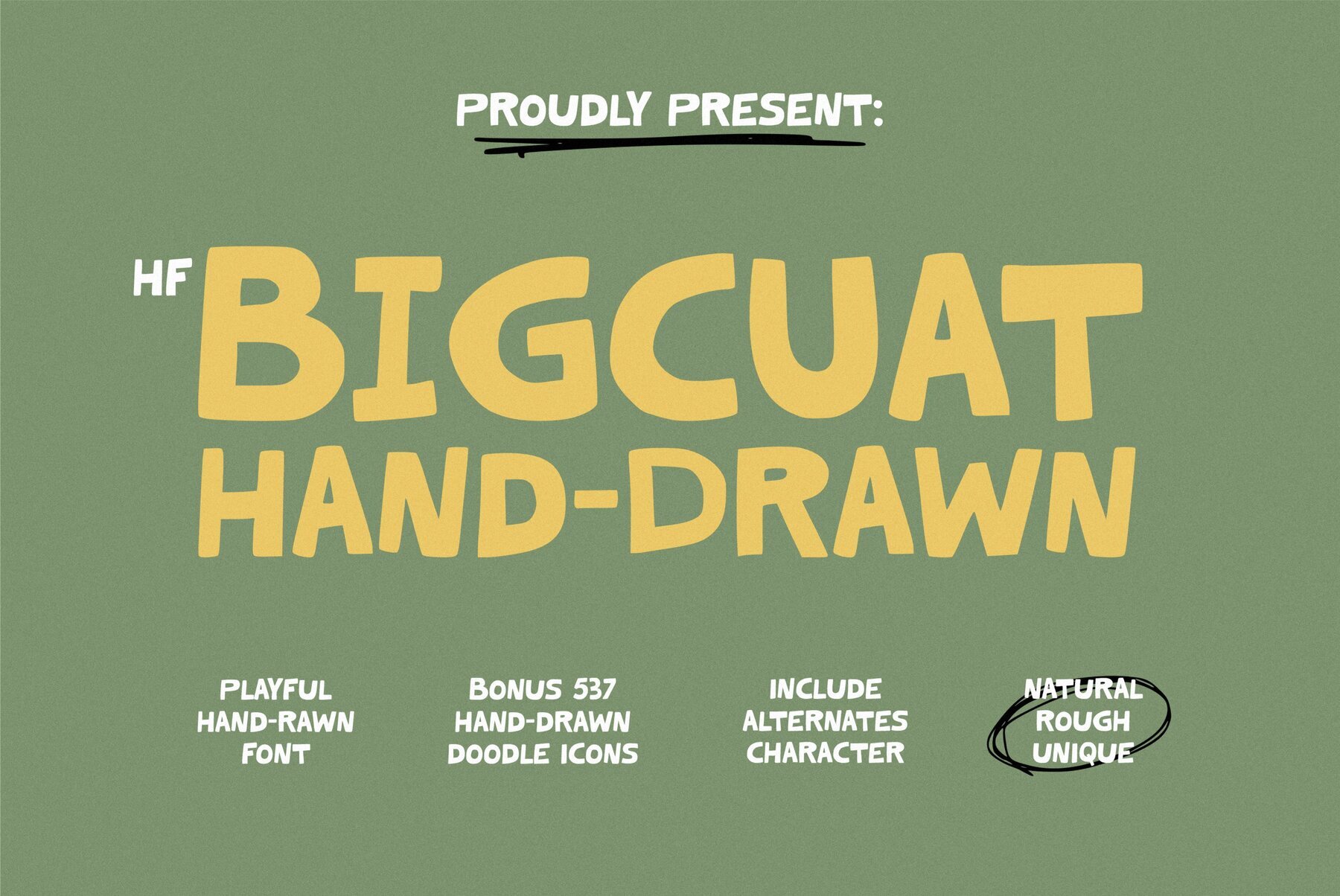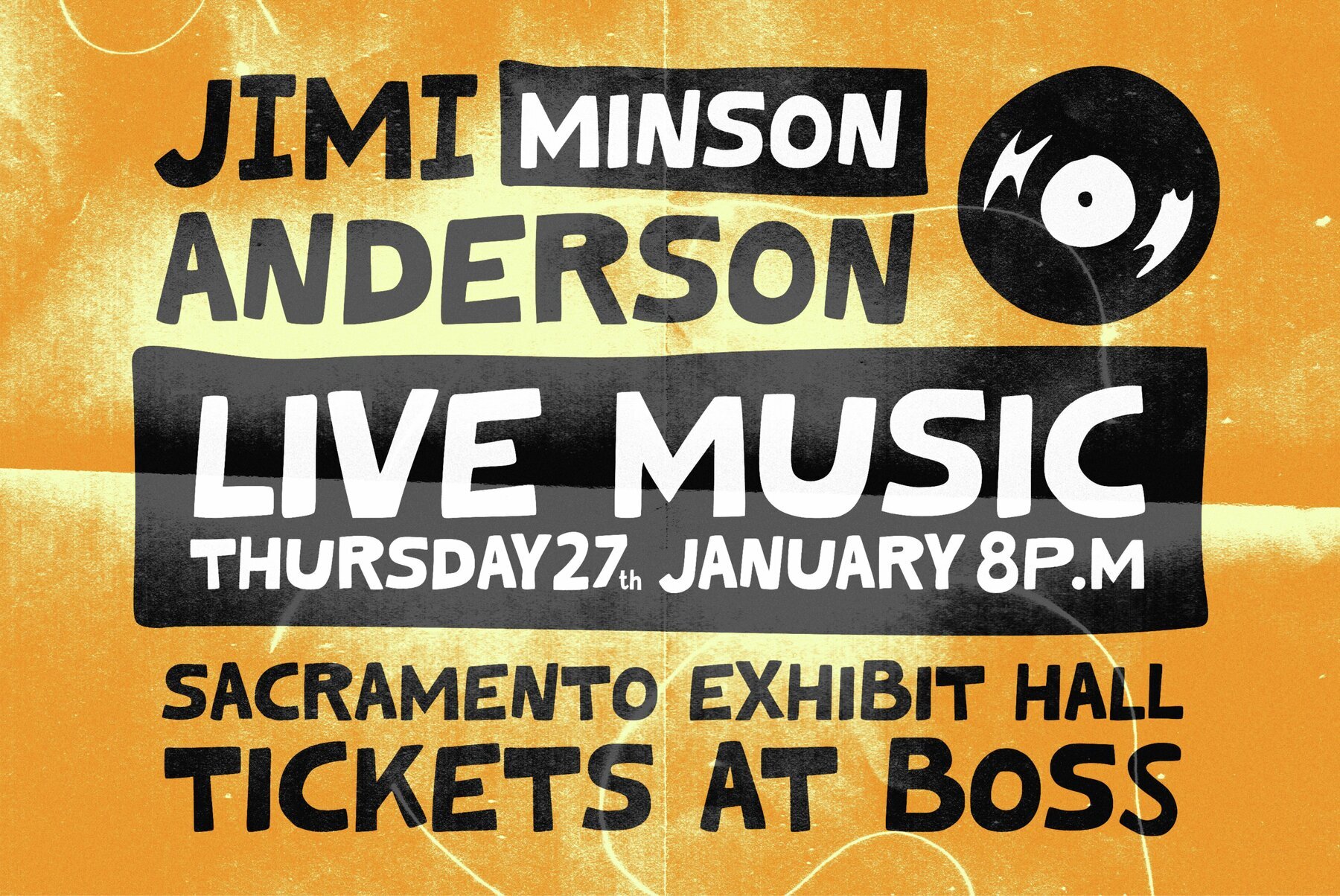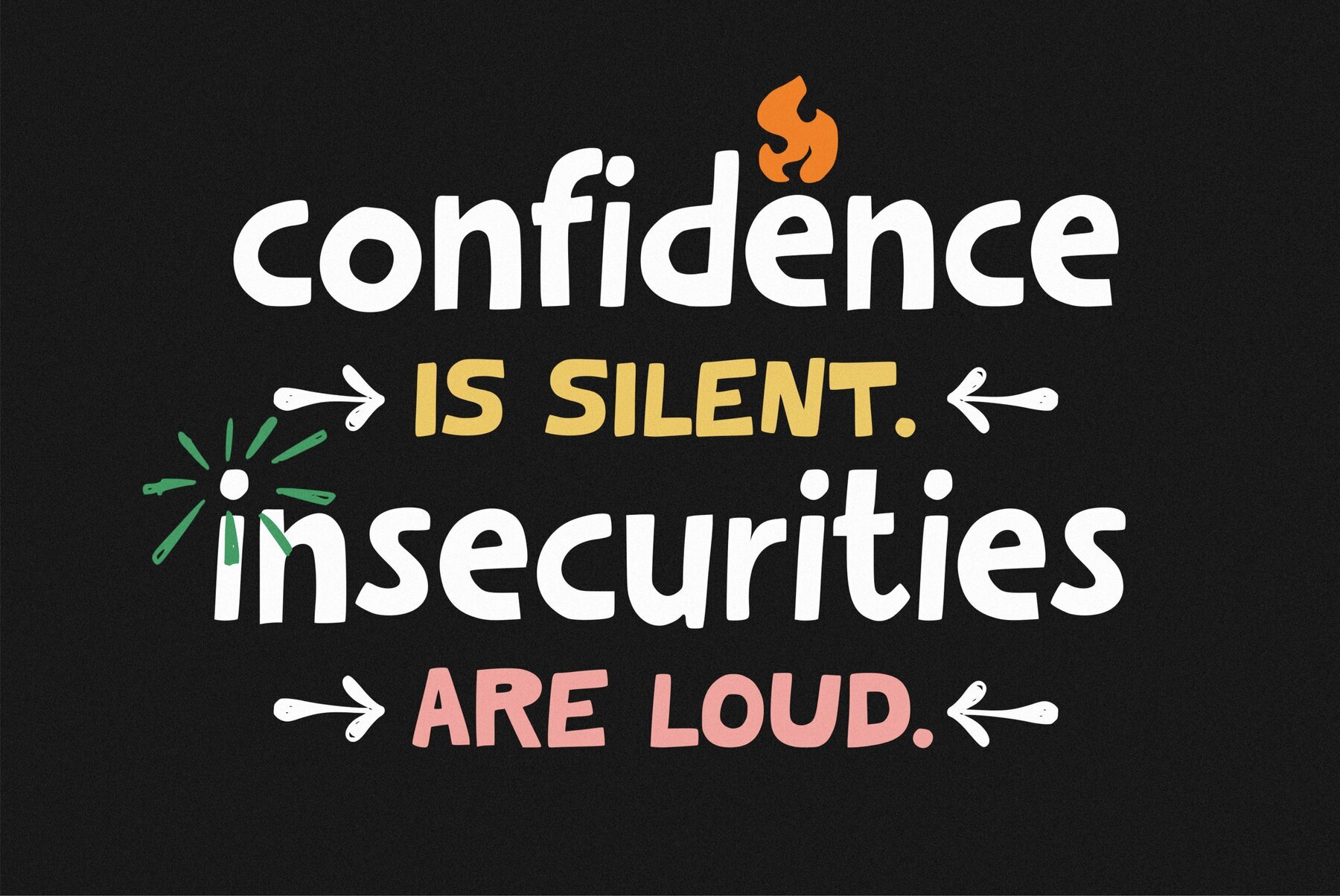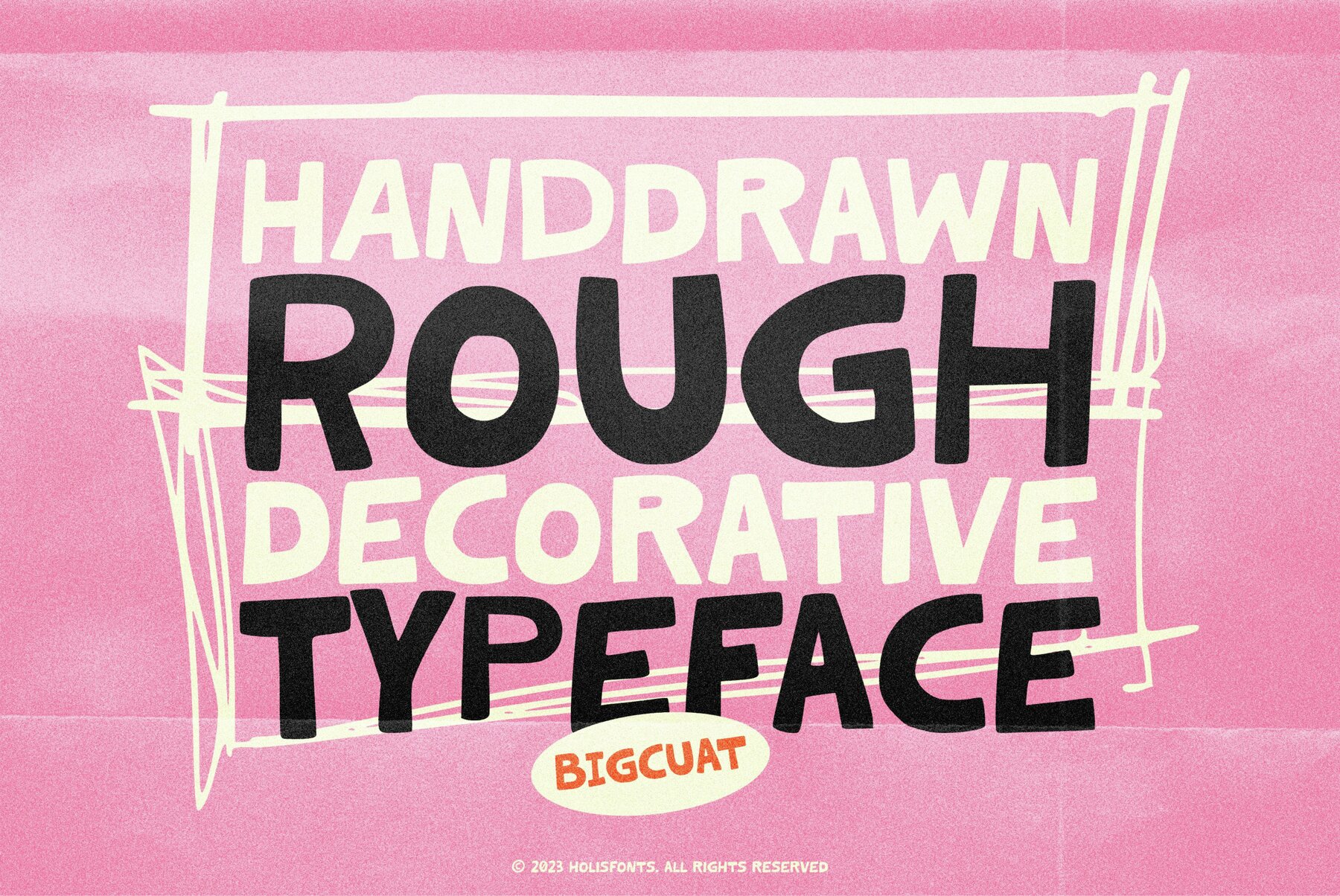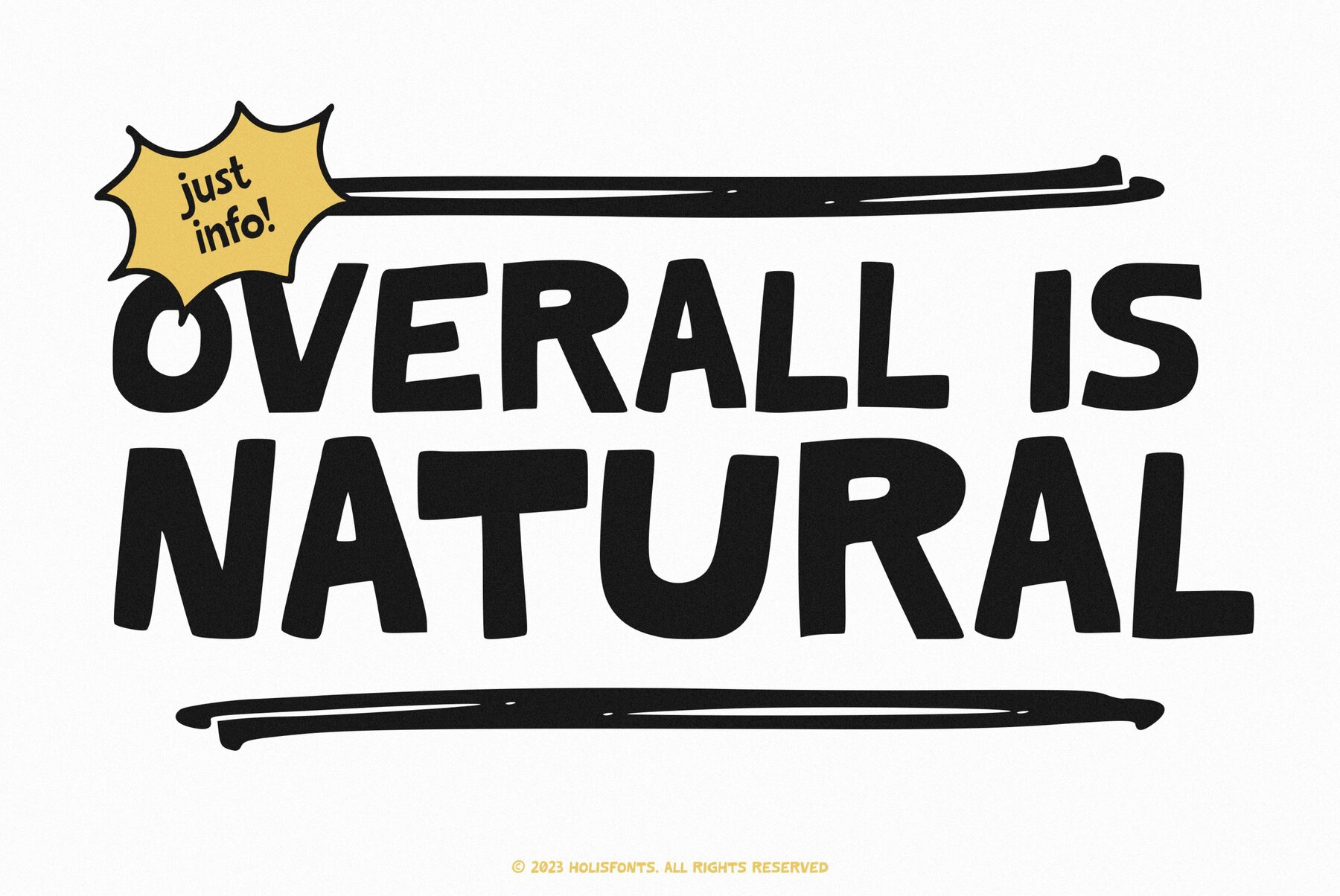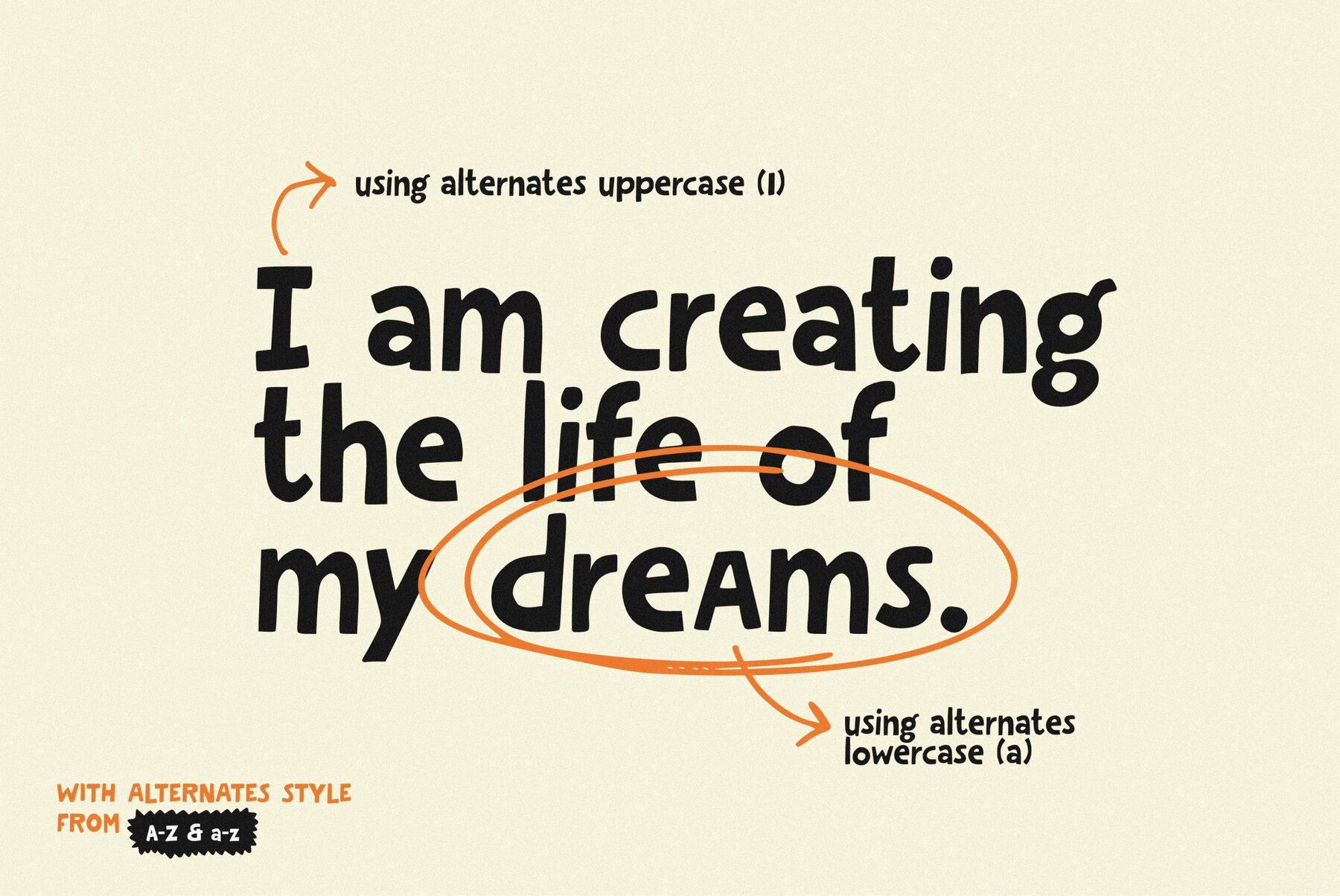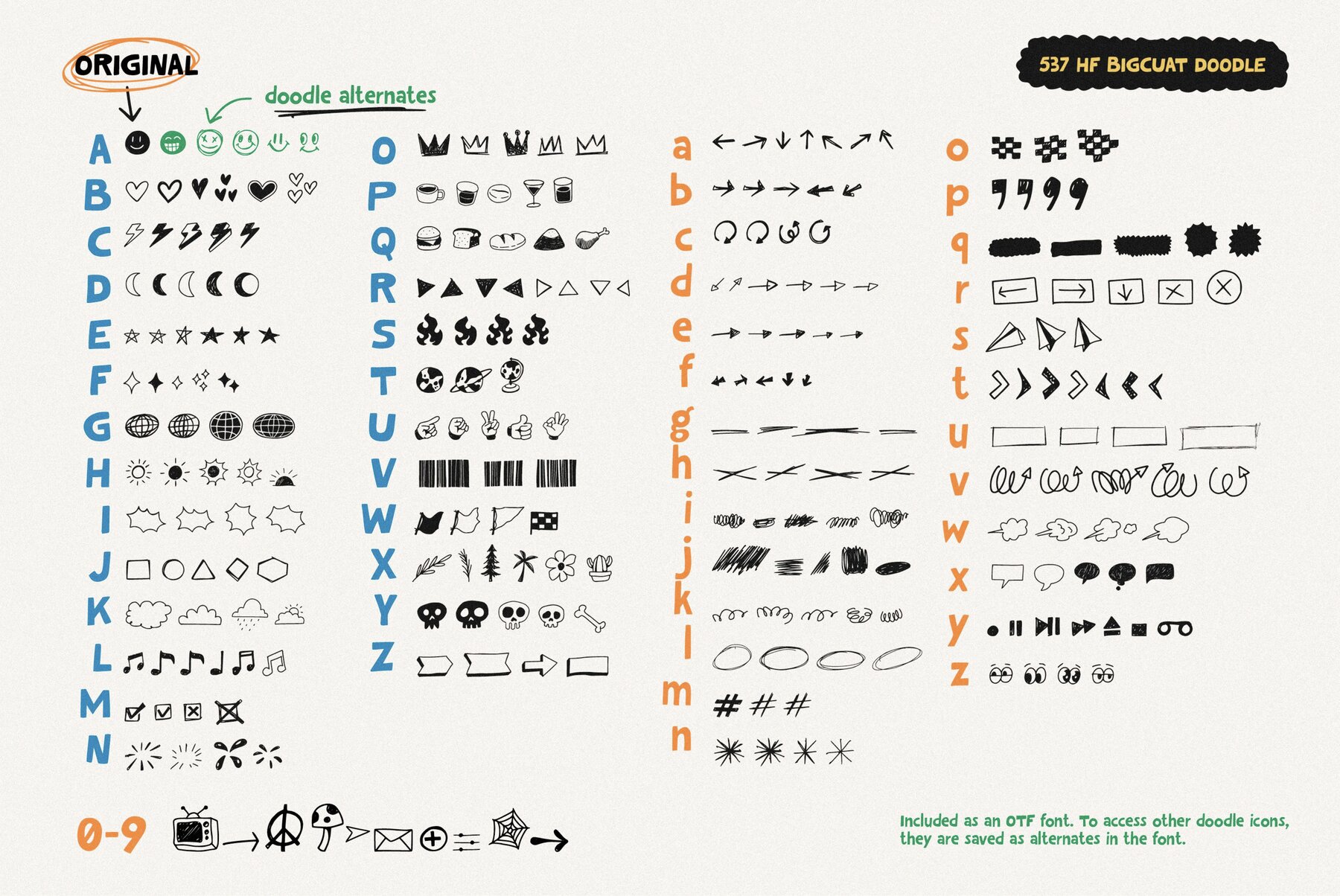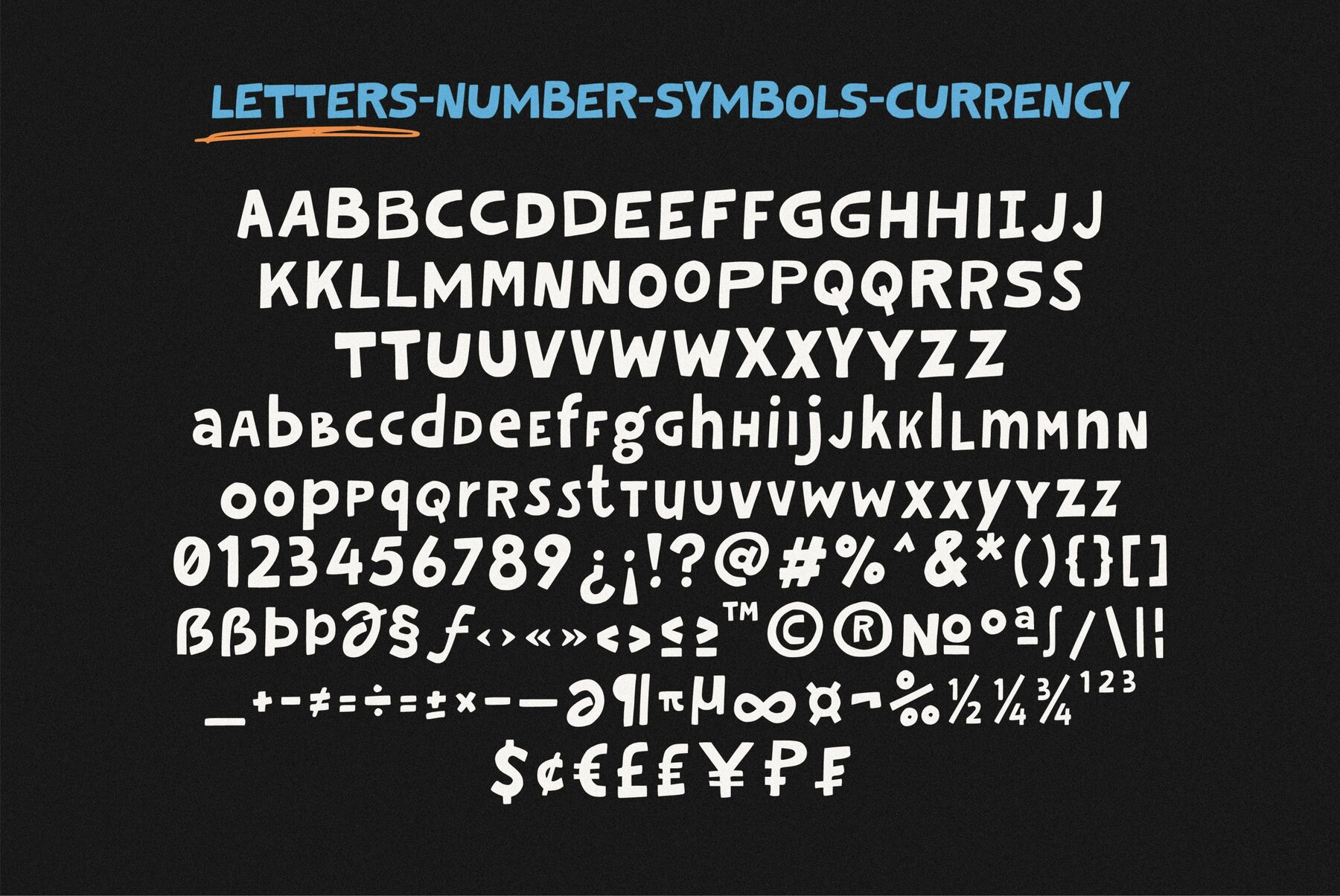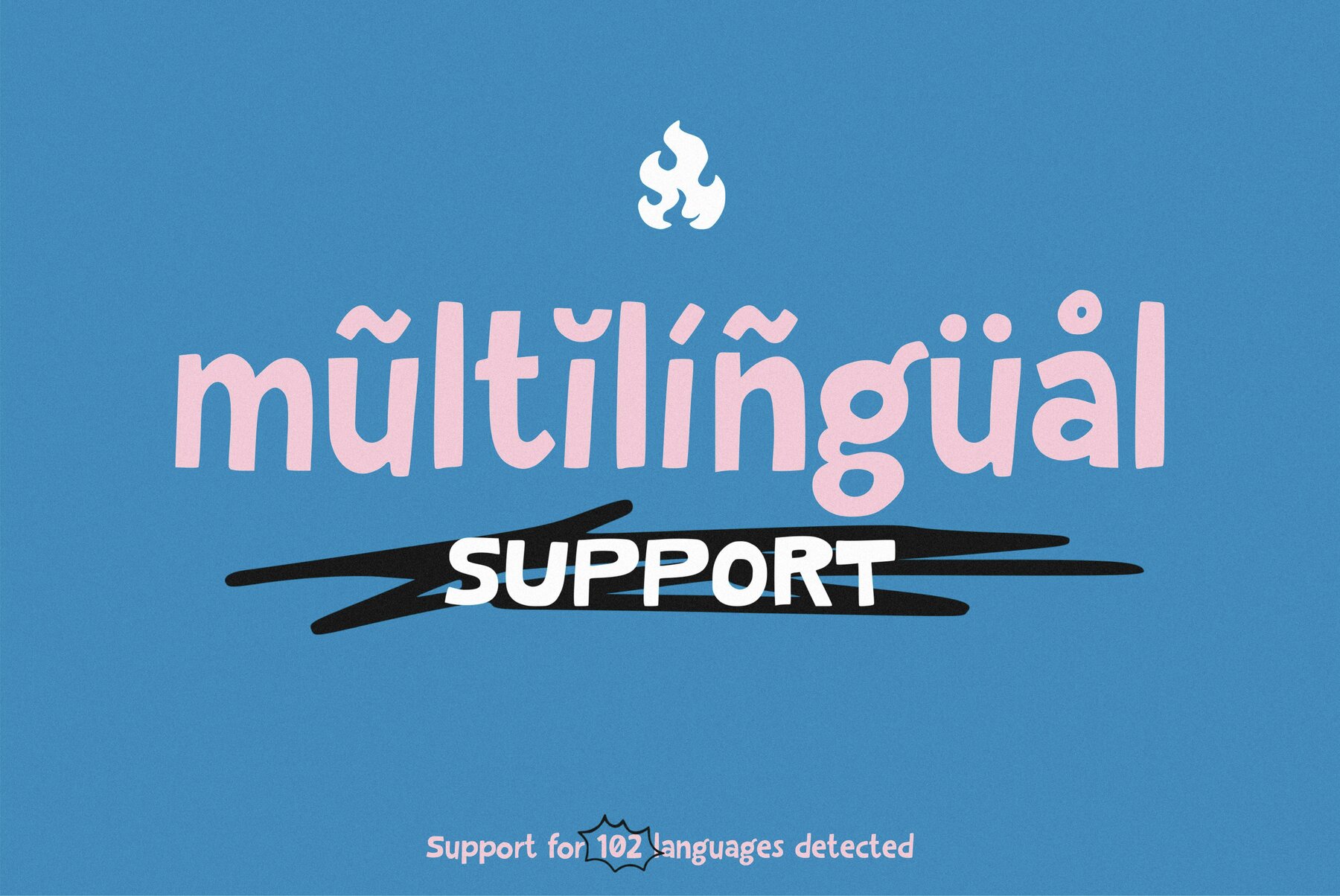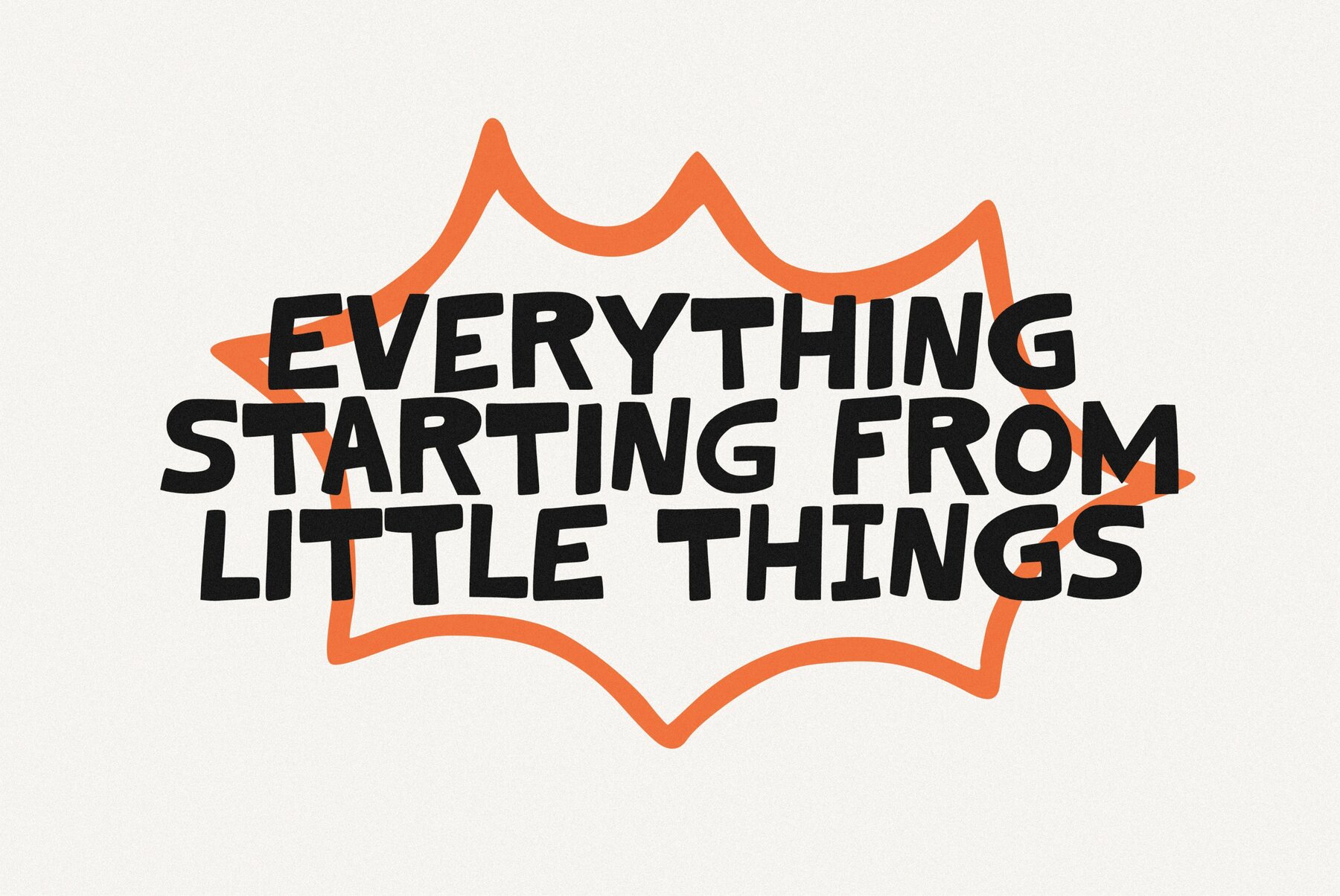
HF Bigcuat Font
HF Bigcuat is a bold handwritten font, inspired by the texture and roughness of markers, resulting in a playful and humorous look for your designs. This font offers a natural and organic feel, making it a standout choice for creative projects. Available in a unique doodle version, HF Bigcuat brings an extra layer of creativity to any design it accompanies.HF Bigcuat: Bold Handwritten Cartoon Font
Creative and Versatile